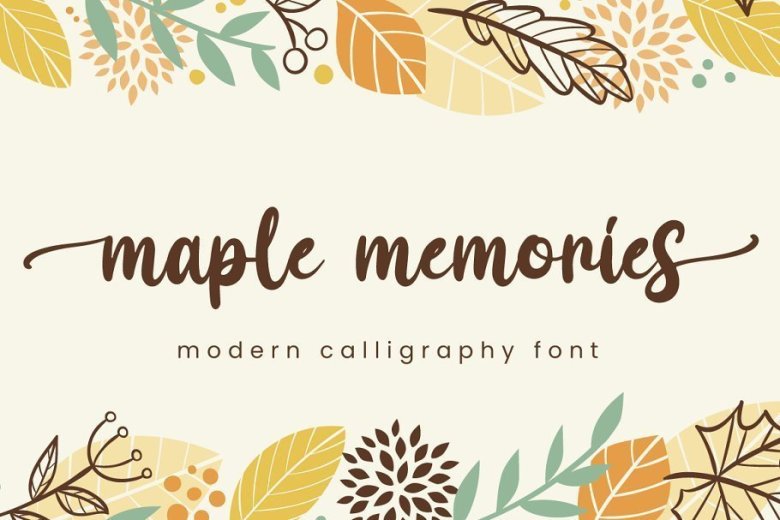
Maple Memories Handwritten Script Font
Maple Memories is a delicate and incredibly handwritten font. Fall in love with its incredibly versatile style and use it to create spectacular designs! Maple Memories is perfect for branding, logo, invitation, stationery, social media post, product packaging, merchandise, blog design, game titles, cute style design, Book/Cover Title and more.